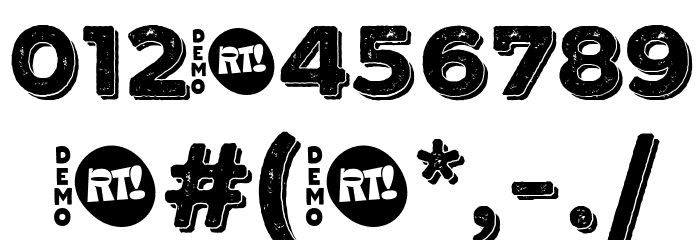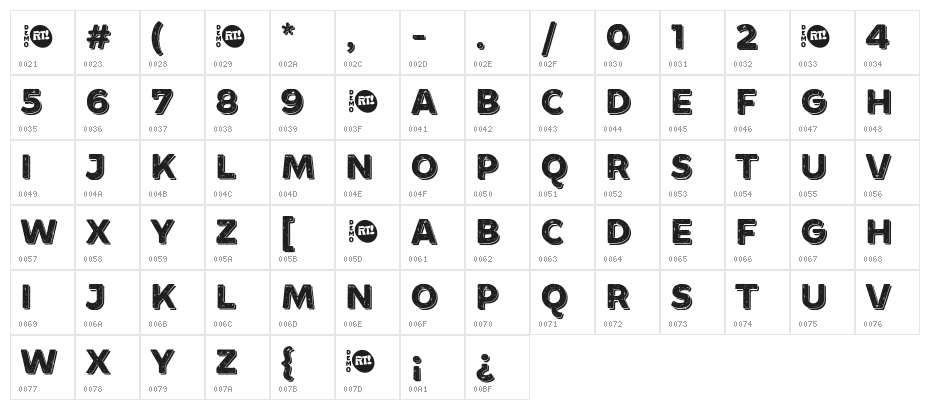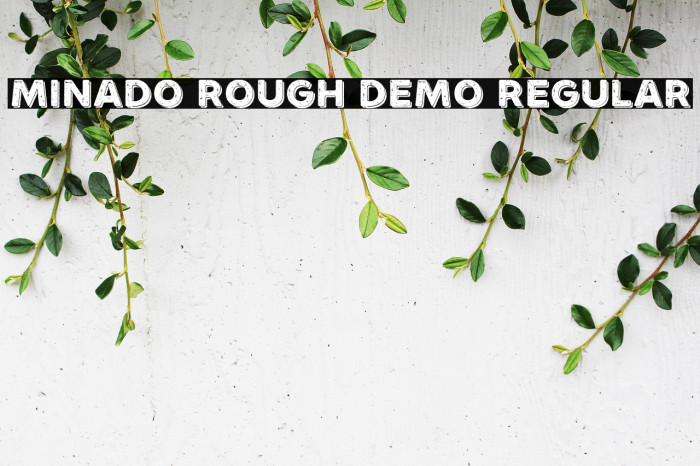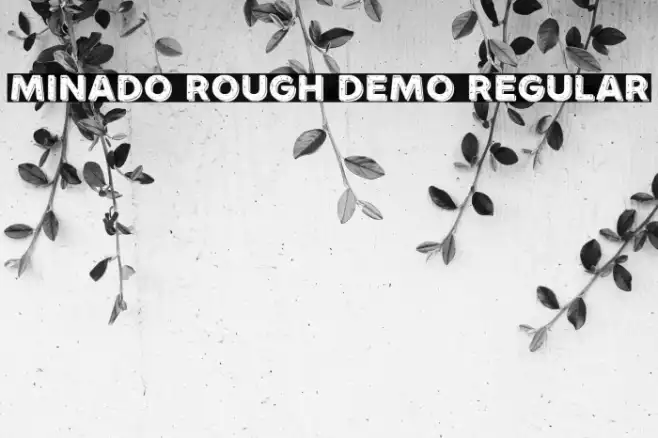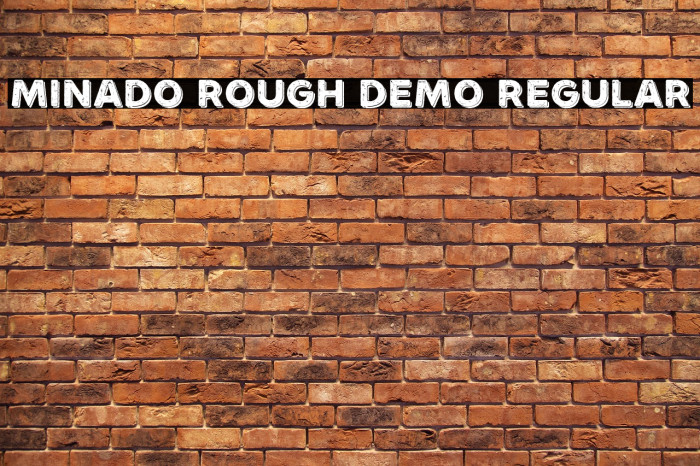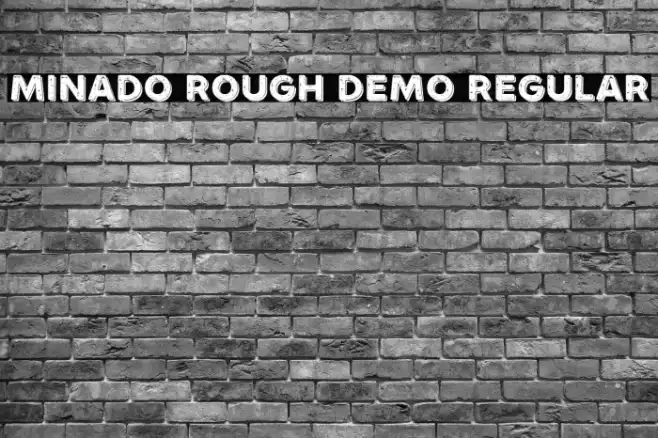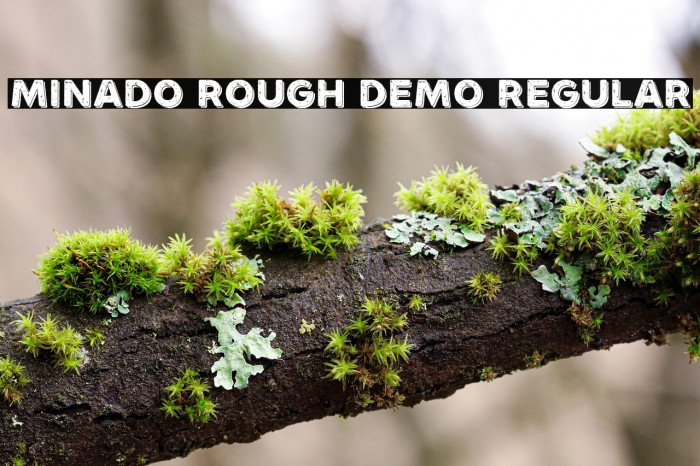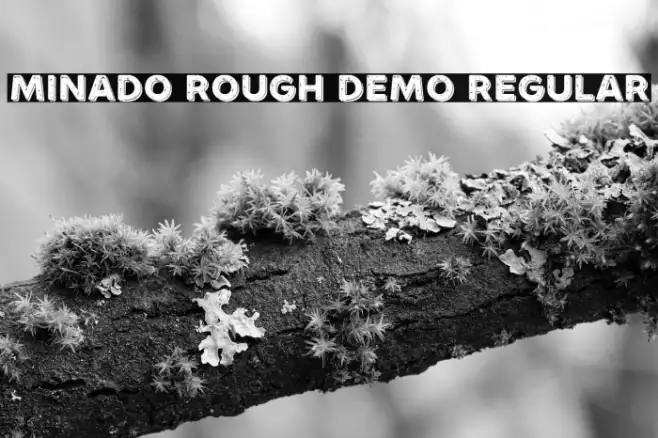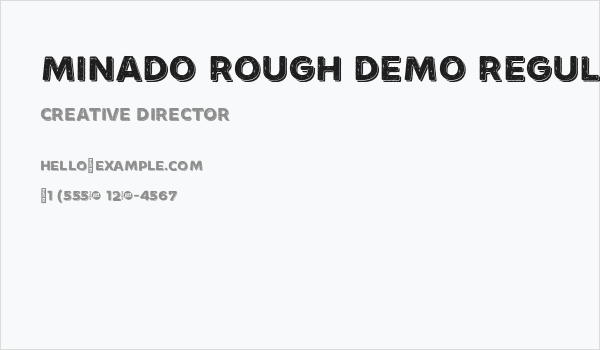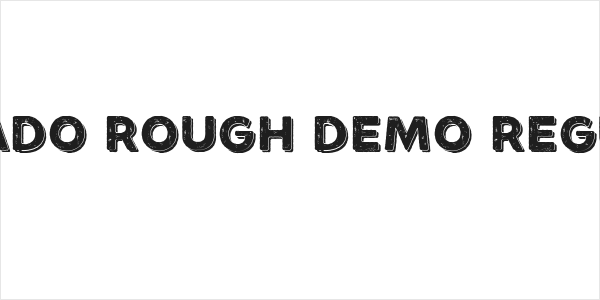
Minado Rough Demo Regular Font
Minado Rough Demo Regular Description
This font features a bold, rough texture that gives it a distressed, vintage appearance. The characters are thick and robust, with a slightly irregular outline that adds to its handcrafted feel. The uppercase and lowercase letters maintain a consistent style, with rounded edges and a uniform thickness throughout. The numerals and special characters follow the same design principles, ensuring a cohesive look across all elements. This font's unique texture makes it stand out, providing a rugged and artistic vibe suitable for various creative projects.
| Proposed Projects | Ideal for posters, branding, packaging, and any project requiring a rustic or vintage aesthetic. |